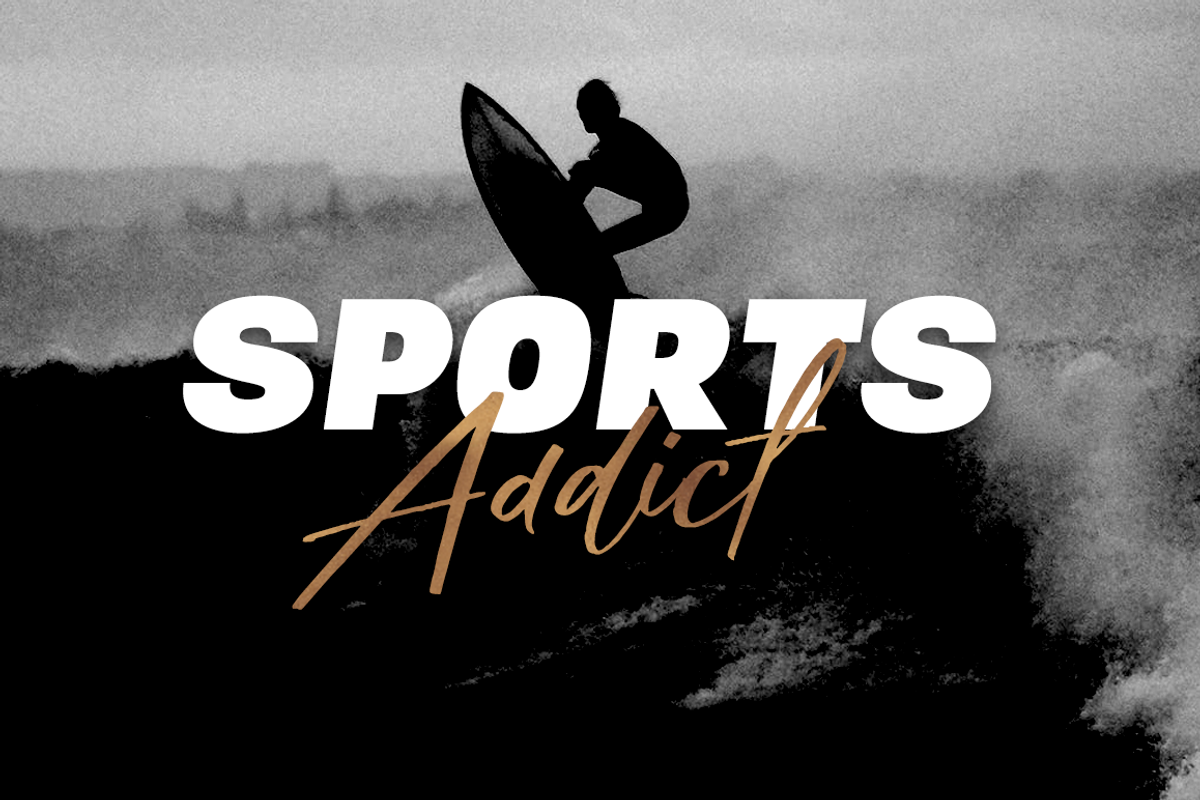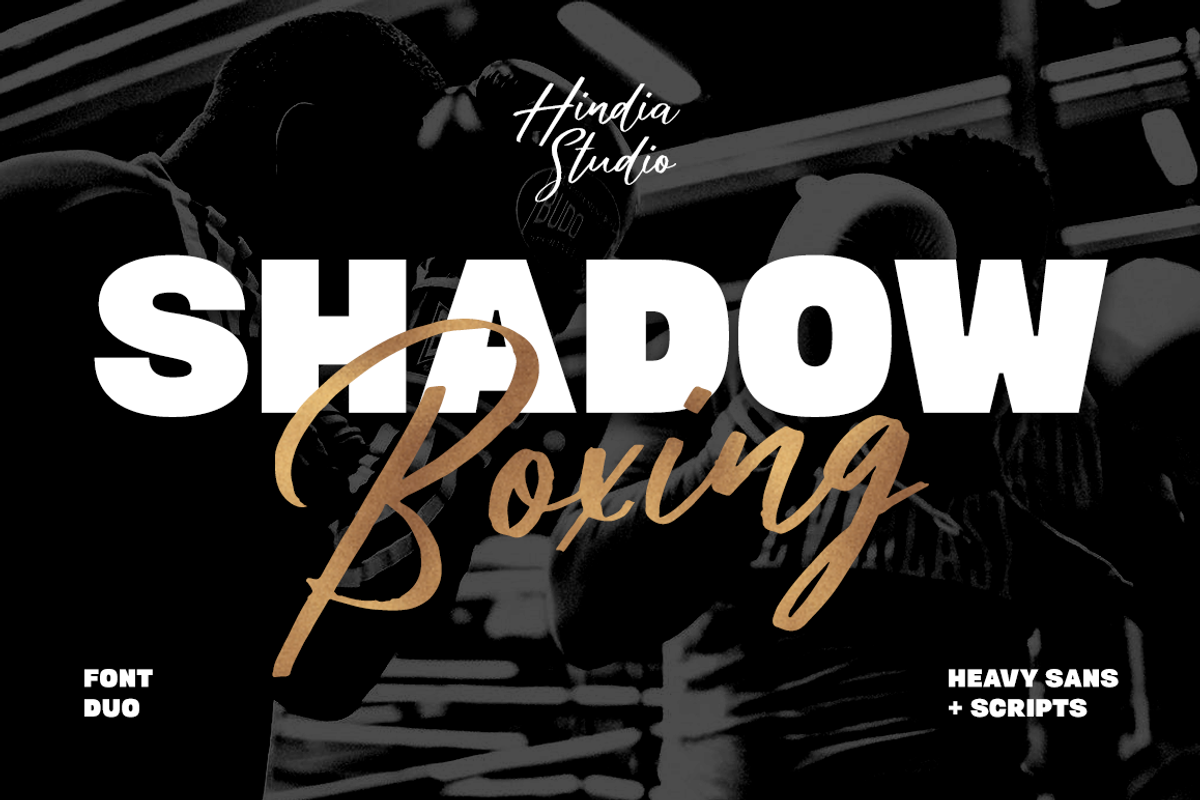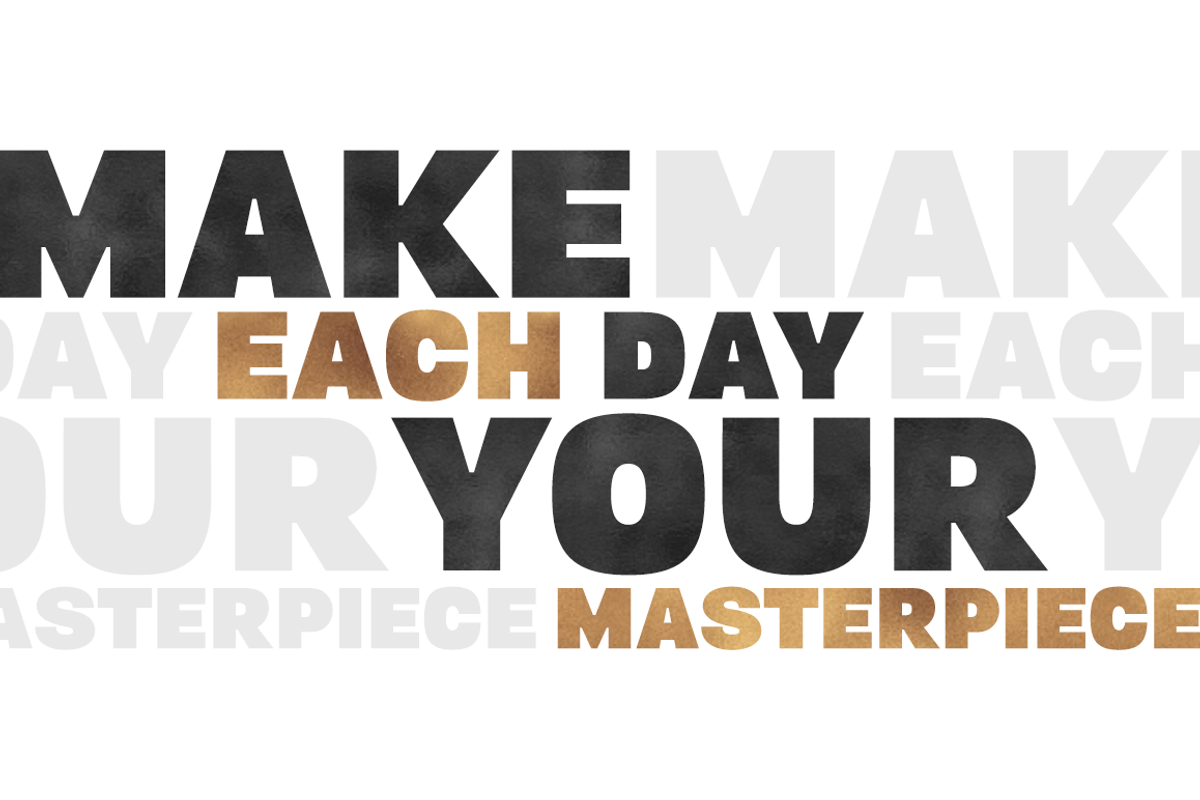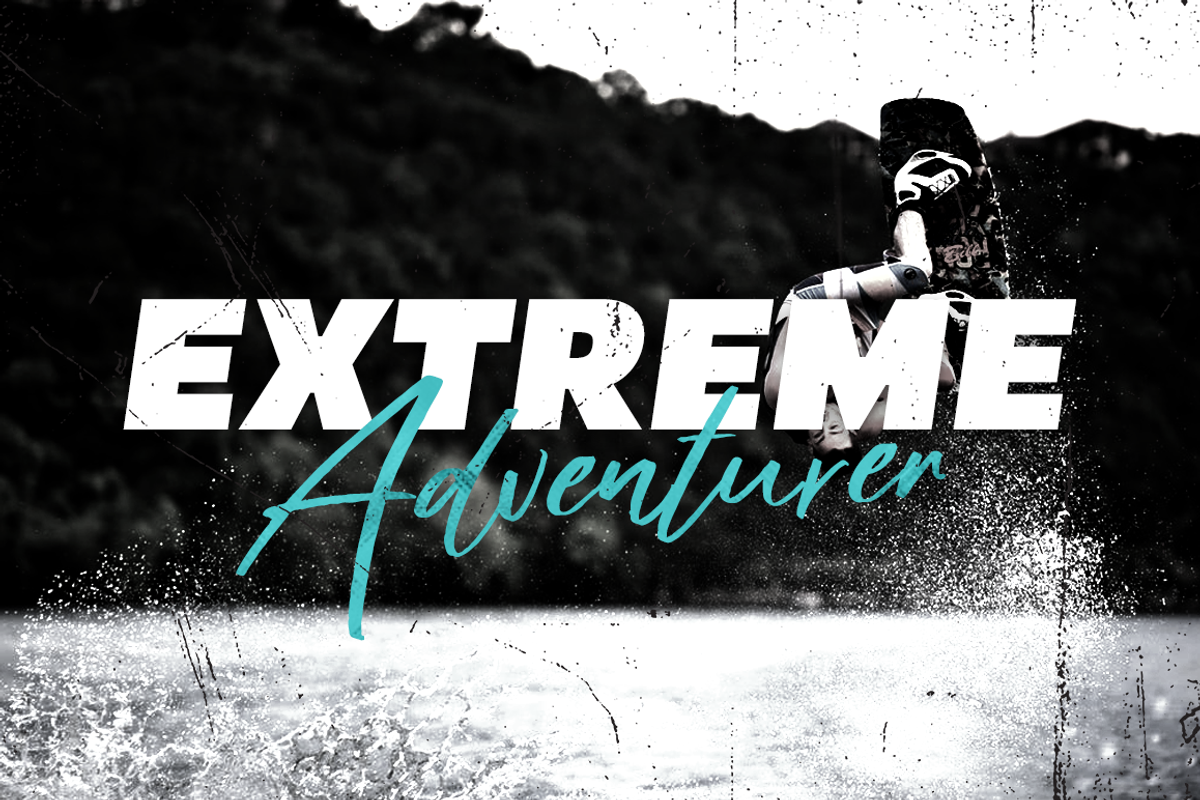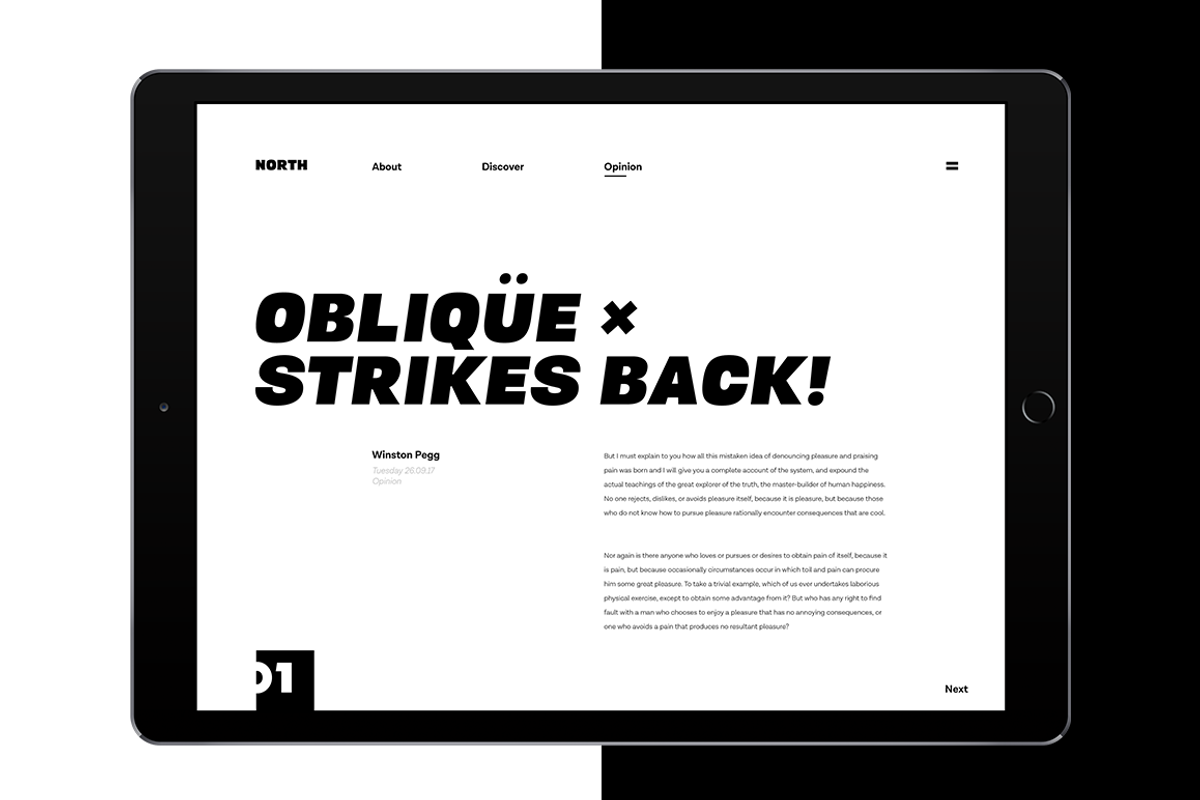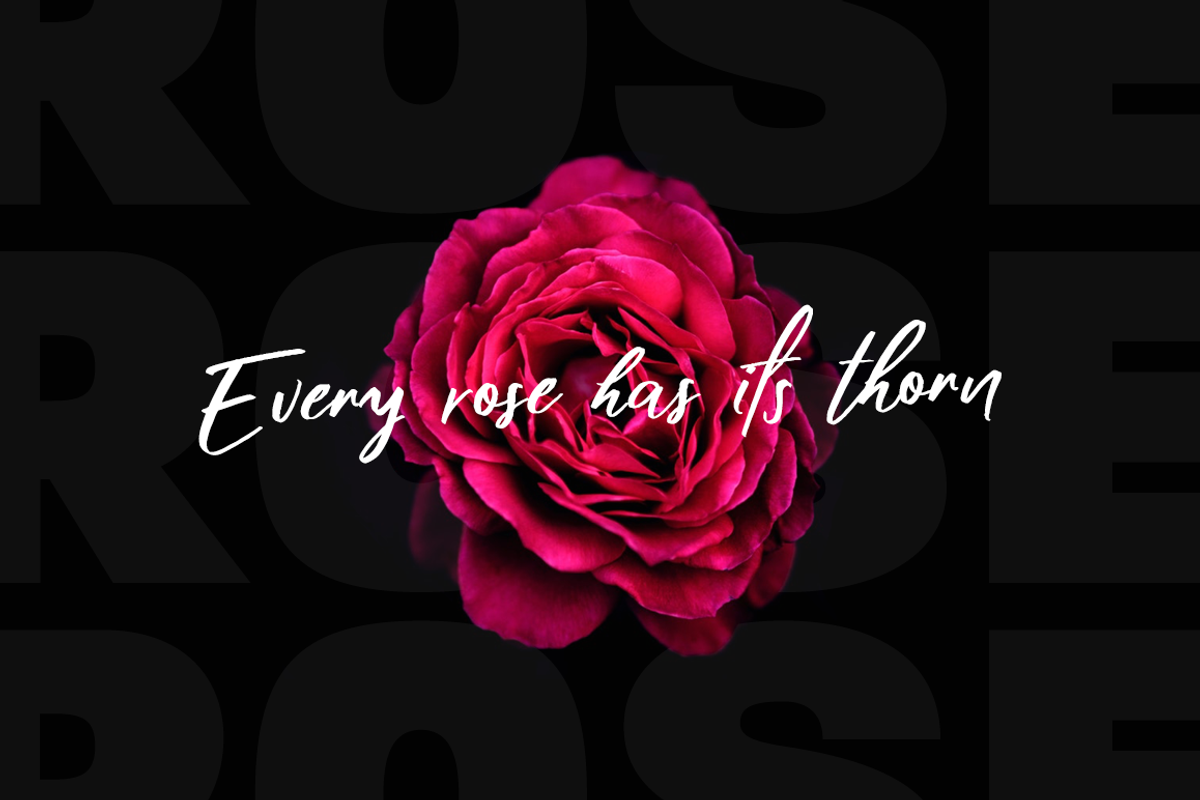
Shadow Boxing Font Duo
SHADOW-BOXING FONT | Every time you need heavy punchlines
Introducing Shadow-Boxing Font Duo! A cool combination between super heavy sans serif and carefree brush script. Whenever you need strong impression for your design, Shadow-Boxing is there for you.. It's nice to have a trustworthy resource as an option, isn't it? Give it a try, mix it up, and be awesome!
- Shadow Boxing Heavy
- Shadow Boxing Heavy Oblique (slanted)
- Shadow Boxing Script One
- Shadow Boxing Script Two
- Punctuations
*The sans serif version is only available with all caps format